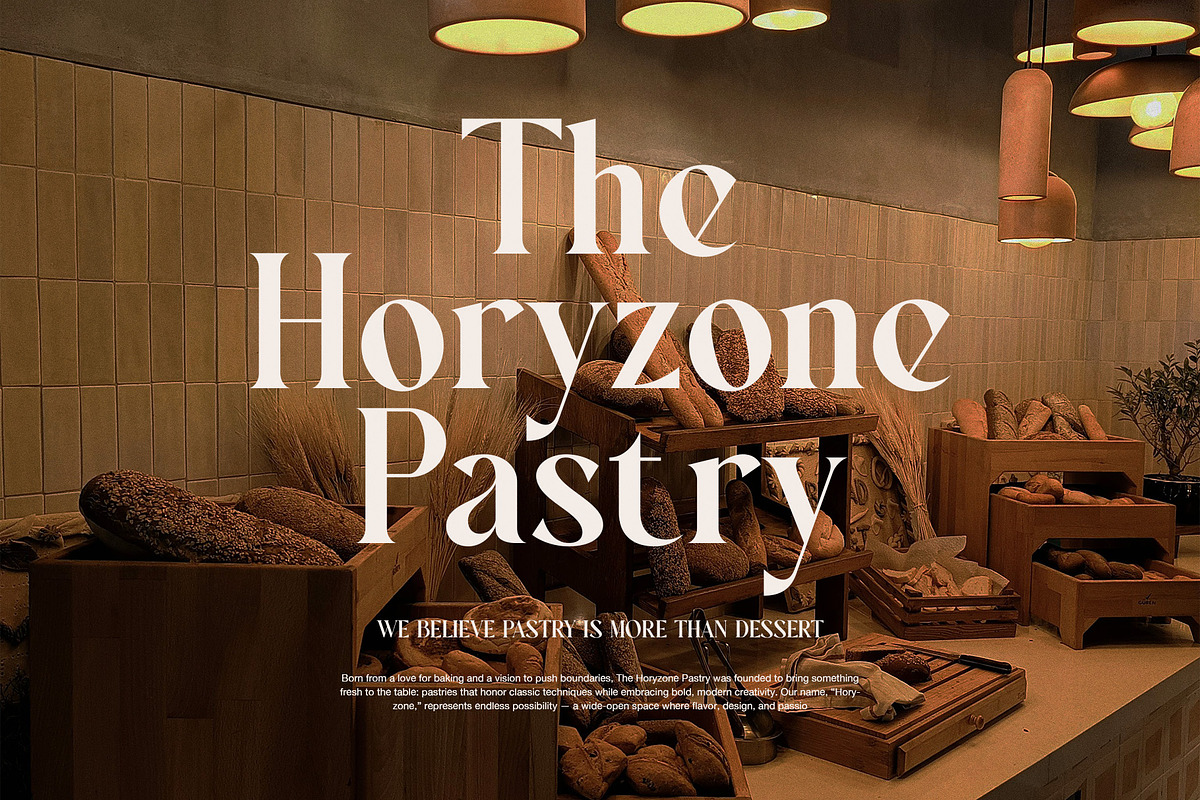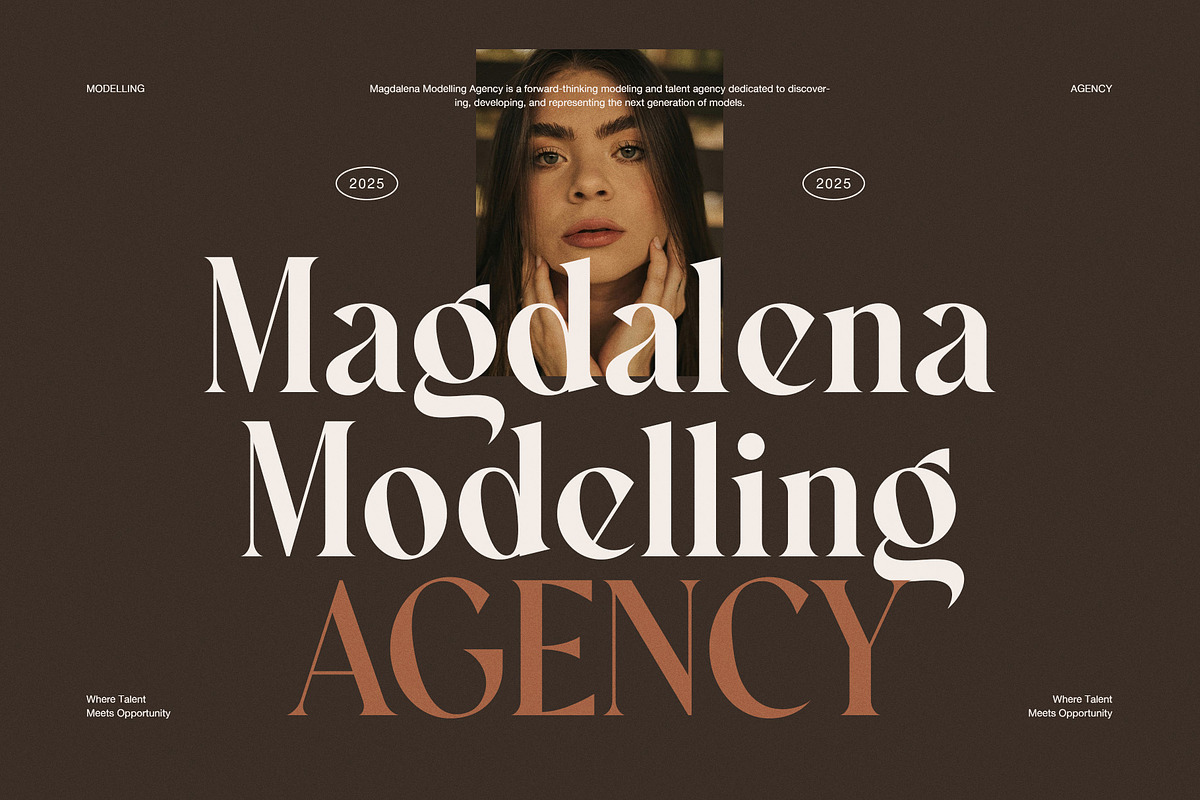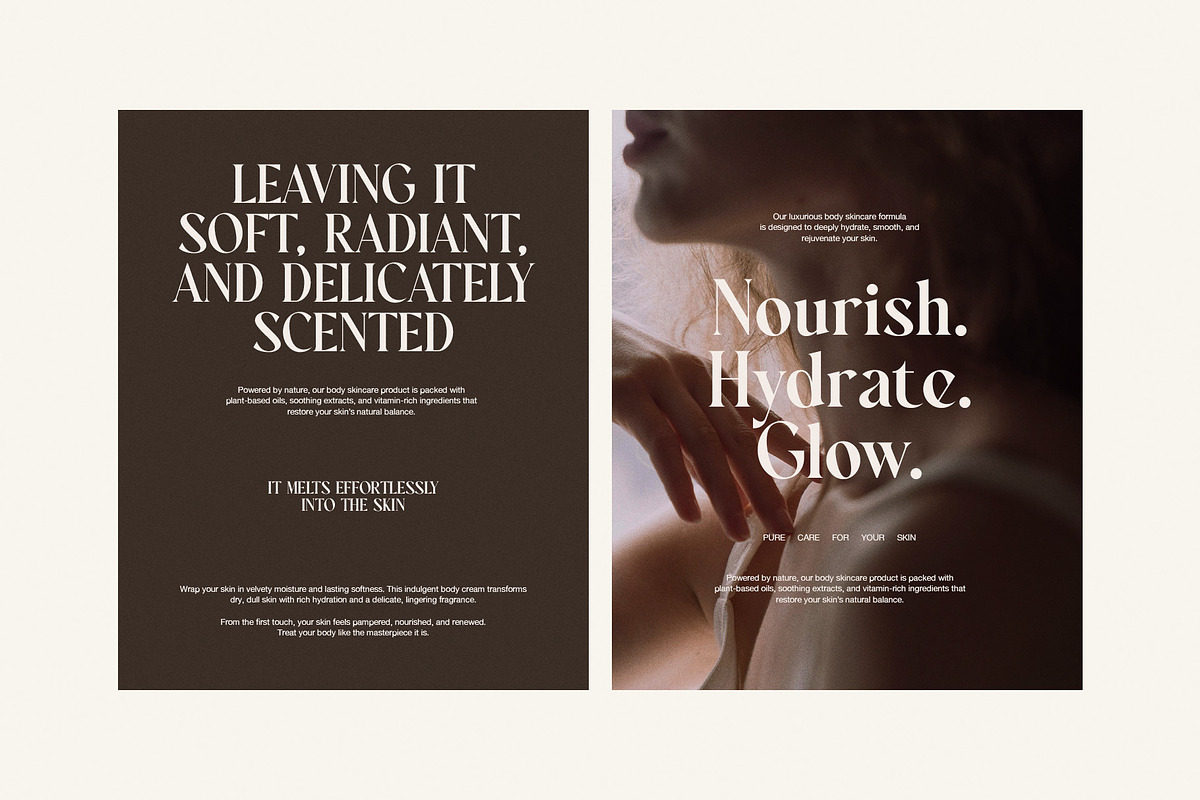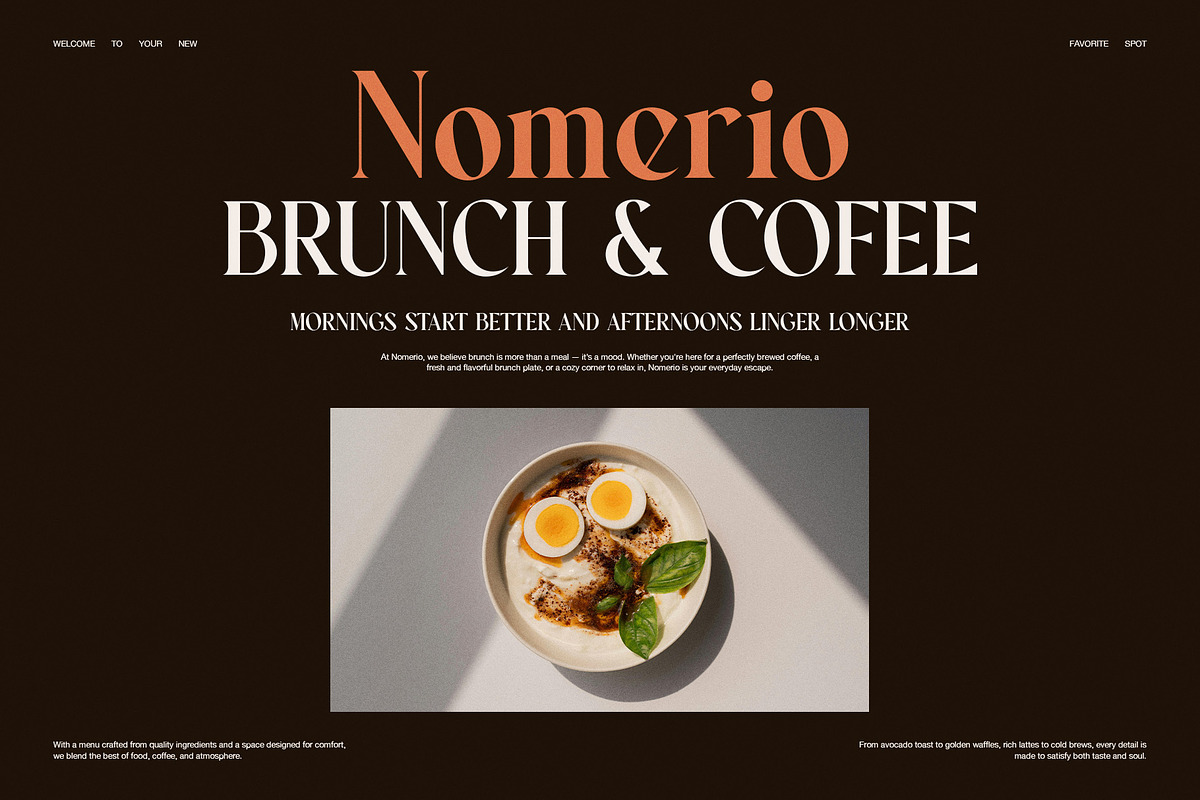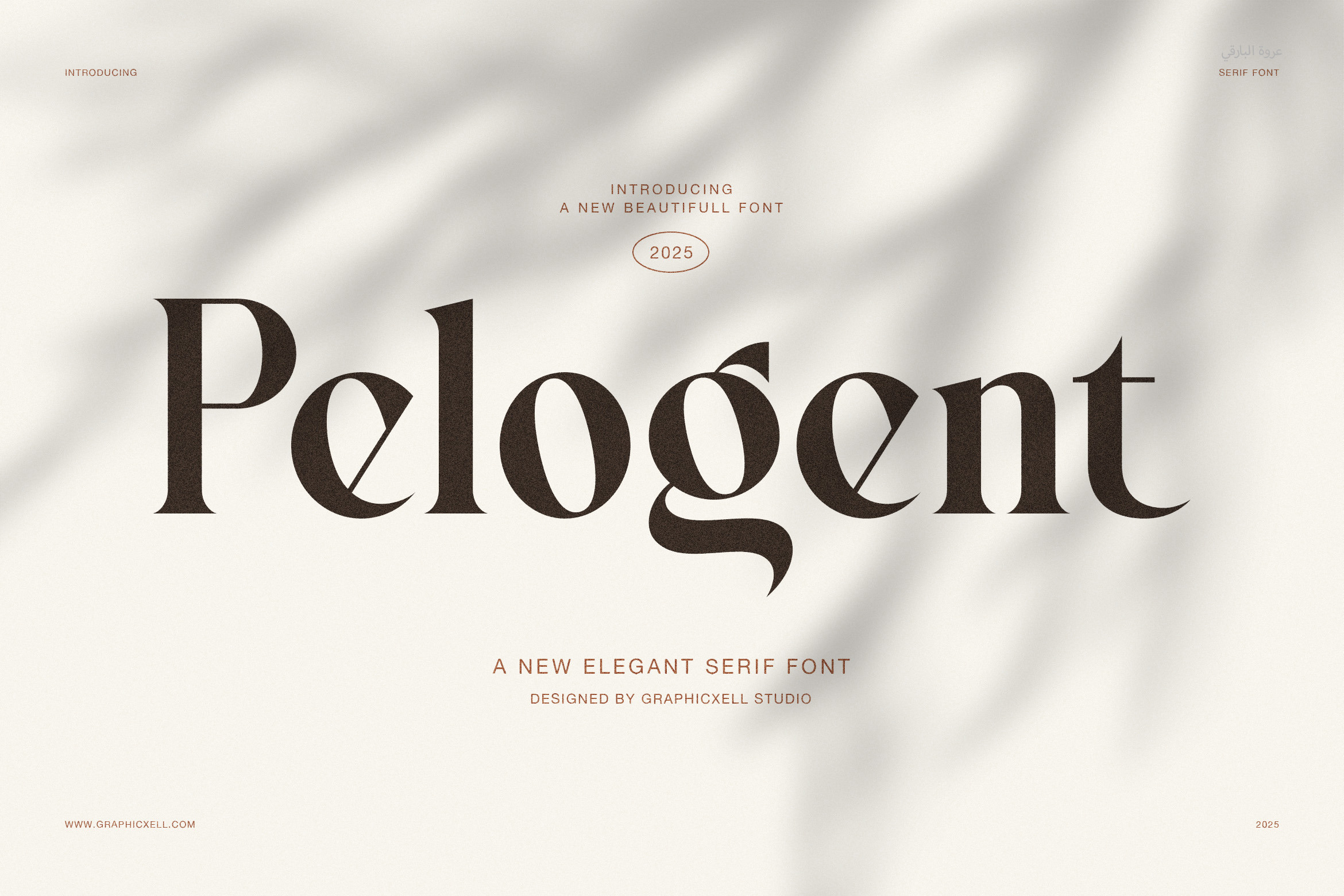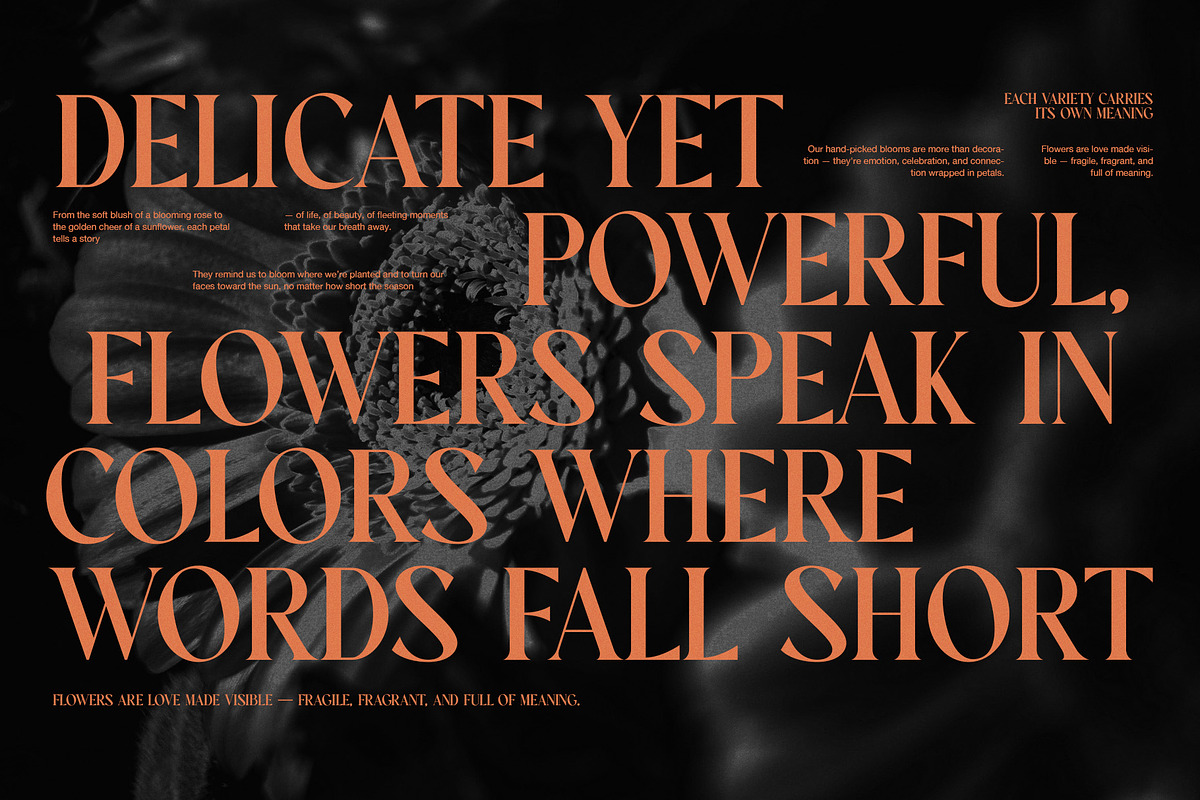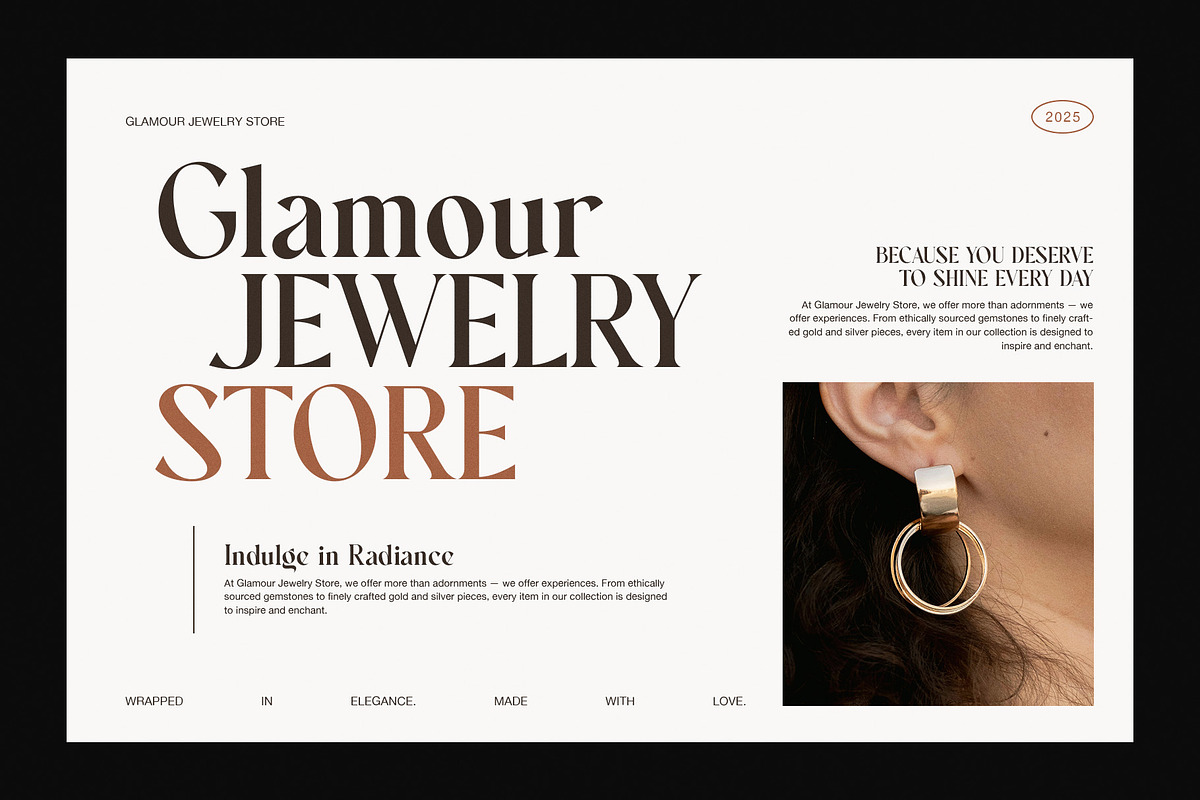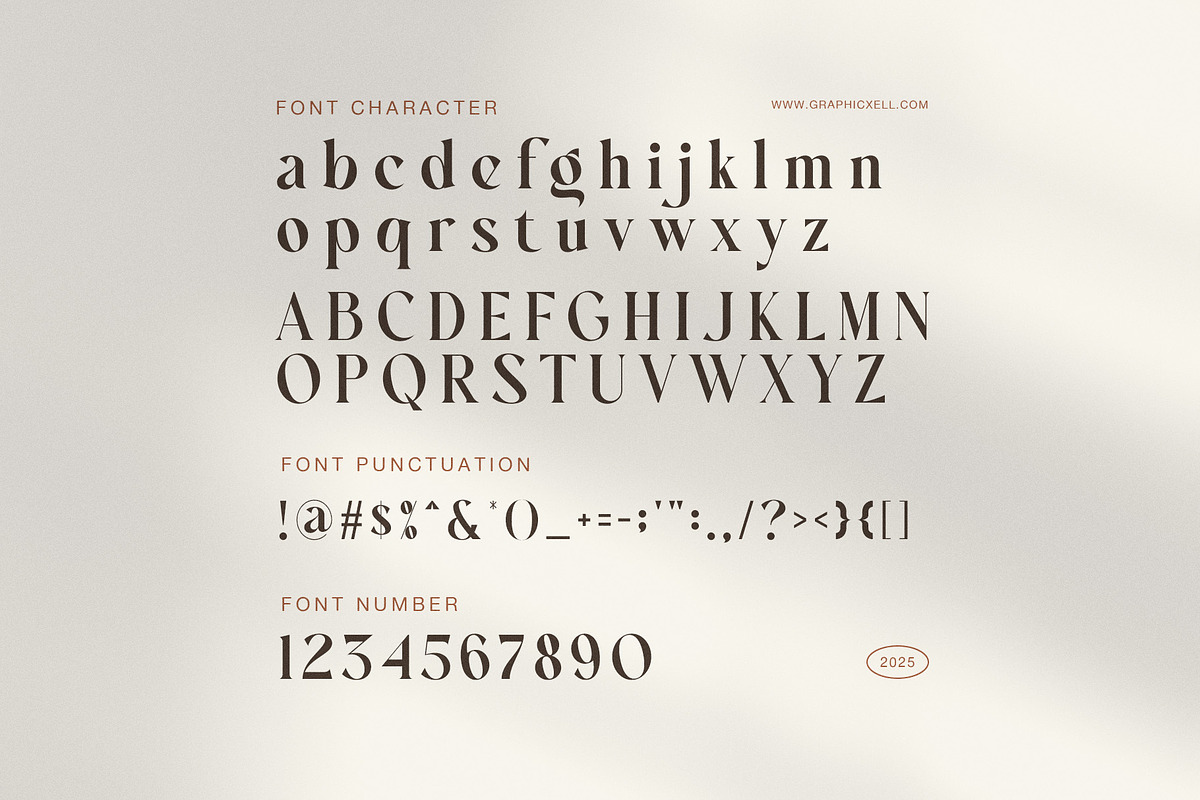
Pelogent Elegant Serif Font
Pelogent Elegant Serif is a timeless serif typeface that blends modern precision with classic beauty. It was created to give every design a luxurious and graceful touch. Because of its elegant form and balanced contrast, this font works beautifully for branding, packaging, fashion, and editorial layouts.
Each curve of Pelogent shows confidence and sophistication. The gentle serifs bring warmth, while the clean strokes keep your text professional and clear. As a result, your designs will look refined, modern, and trustworthy. Moreover, its smooth structure ensures excellent readability on both print and digital screens.
Main Features:
Elegant serif design with graceful letterforms.
Complete uppercase, lowercase, numbers, and symbols.
Ideal for logos, packaging, and editorial projects.
Pairs perfectly with modern sans-serif fonts.
Because of its versatility, Pelogent fits many creative styles. You can use it to craft brand identities, fashion magazines, product packaging, or wedding stationery. It looks luxurious without being too decorative, which makes it suitable for long paragraphs or short titles alike.
In addition, this serif font performs well in both light and dark layouts. It brings harmony to every design while adding a premium feeling to your visuals. When combined with minimalist layouts or soft color palettes, it highlights sophistication and confidence.
Ultimately, Pelogent Elegant Serif is not just a typeface—it’s a statement of taste and refinement. With every letter, it helps brands express clarity, beauty, and timeless elegance. If you want to elevate your creative work, choose Pelogent for your next professional project.